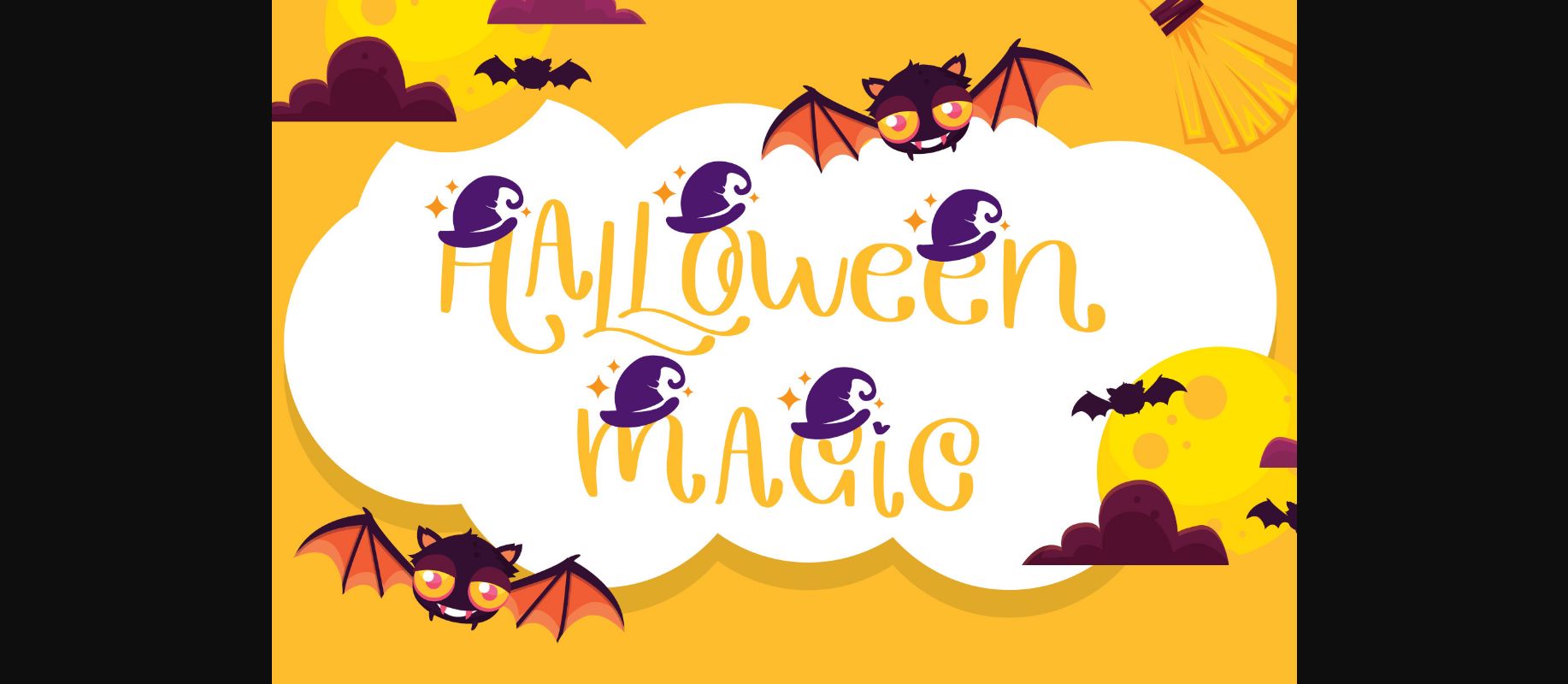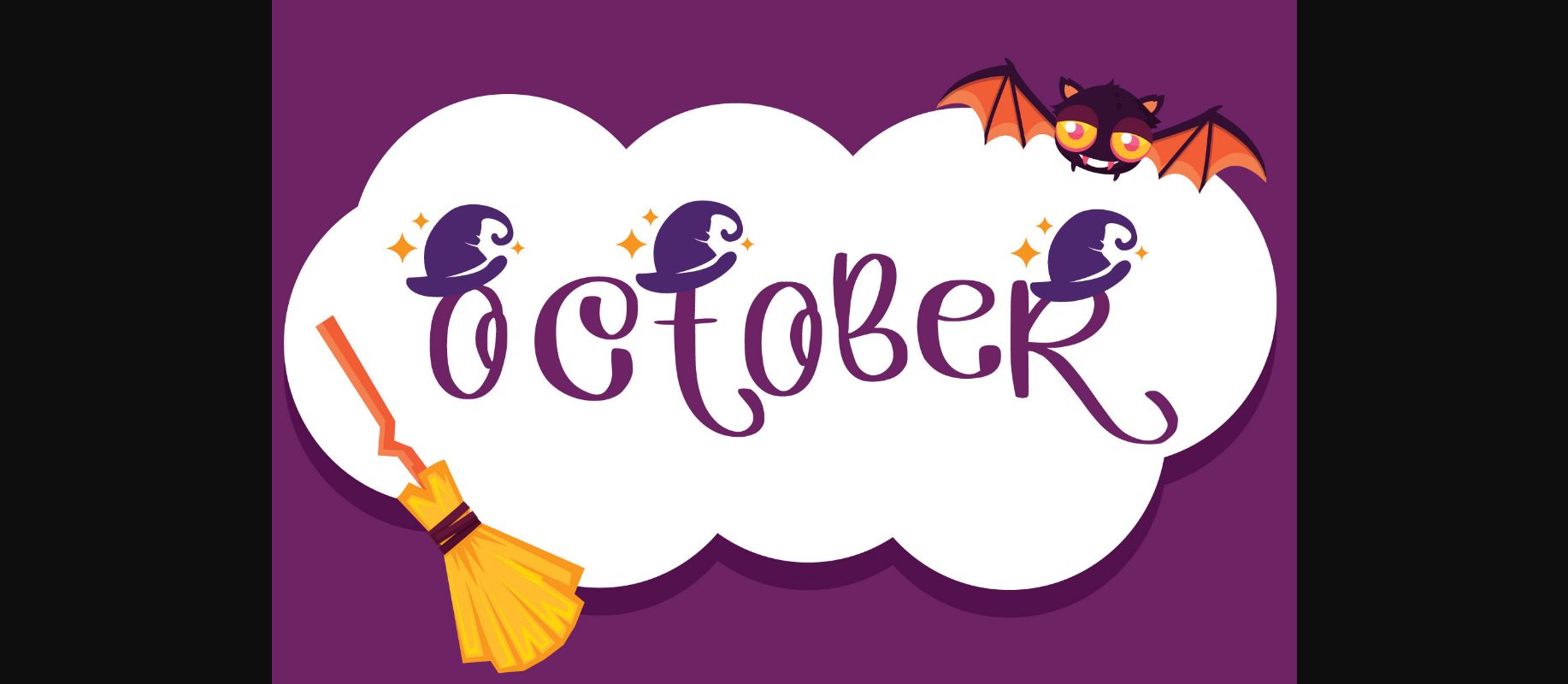
Magic Halloween is a cute and spooky decorative font. It is perfectly suitable for any Halloween-related project or crafty idea! The only limit is your imagination.